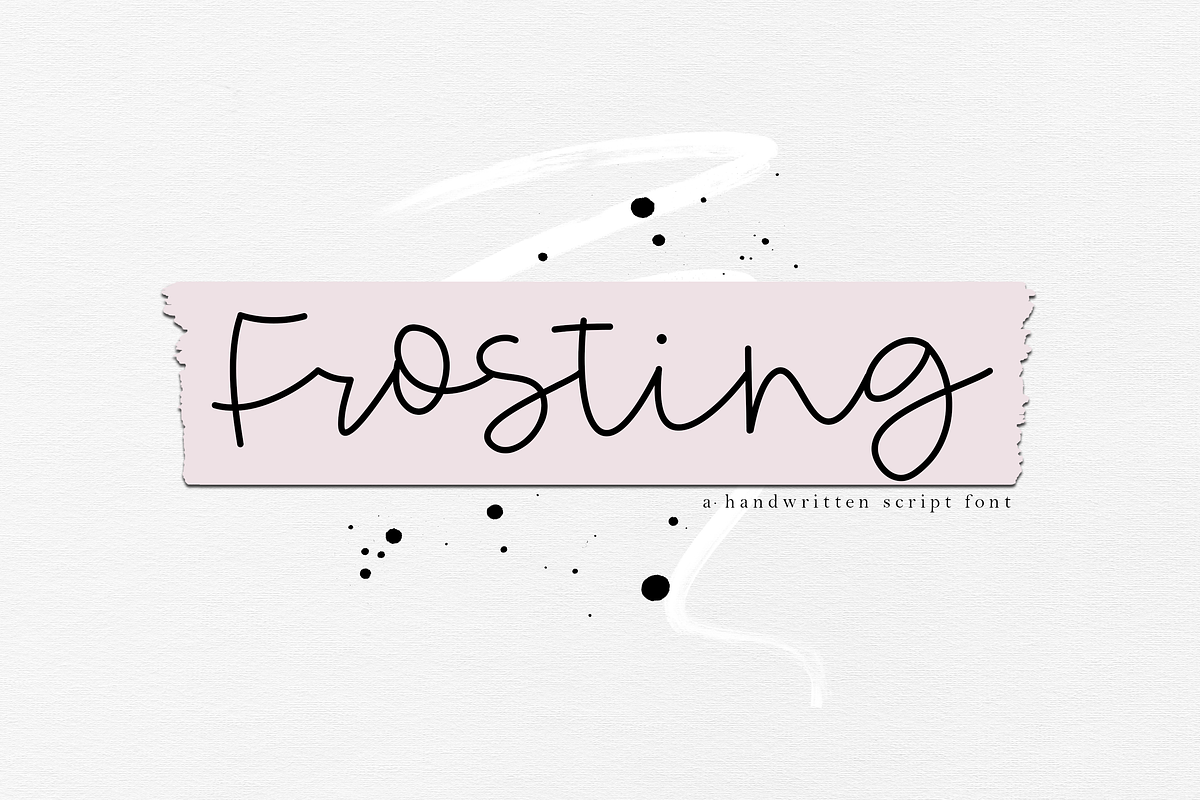
Frosting – Handwritten Script Font Free Download
Sweet, soft, and full of charm, Frosting – Handwritten Script Font Free Download is a playful and elegant typeface that mimics the smooth flow of hand-drawn lettering. Ideal for greeting cards, wedding invitations, logos, product packaging, and lifestyle branding, this font adds a personal, whimsical touch to any design.
With its rounded curves, delicate strokes, and natural bounce, Frosting brings warmth and personality to your typography. It’s especially perfect for projects that need to feel lighthearted, feminine, or handcrafted—like a sweet note written just for you.